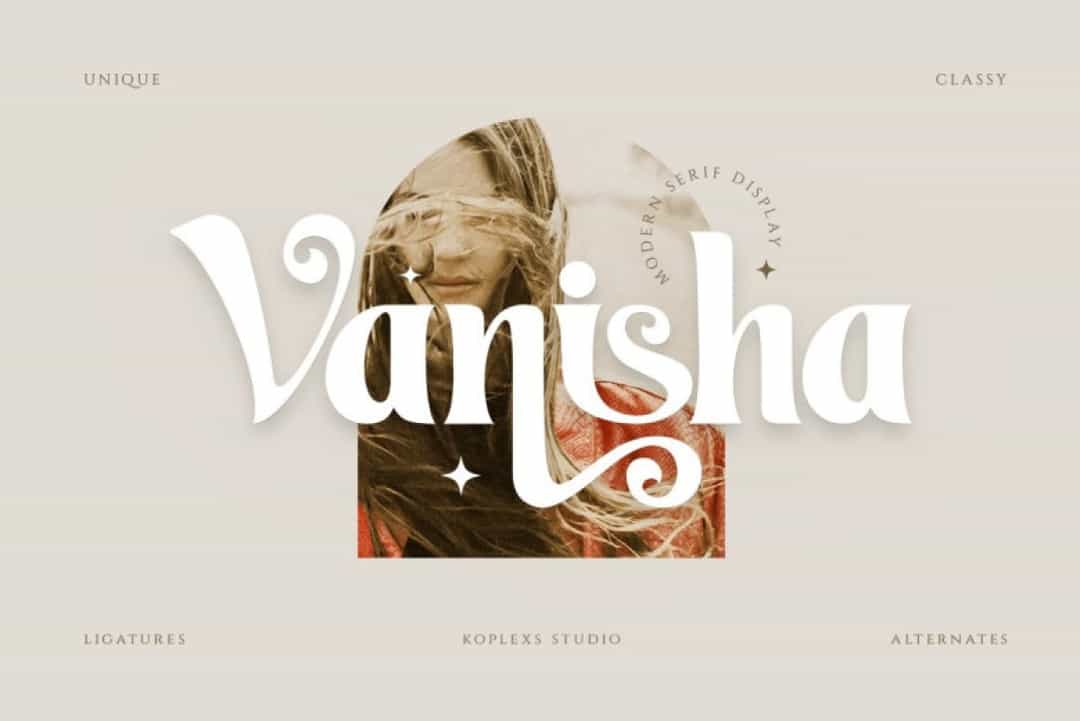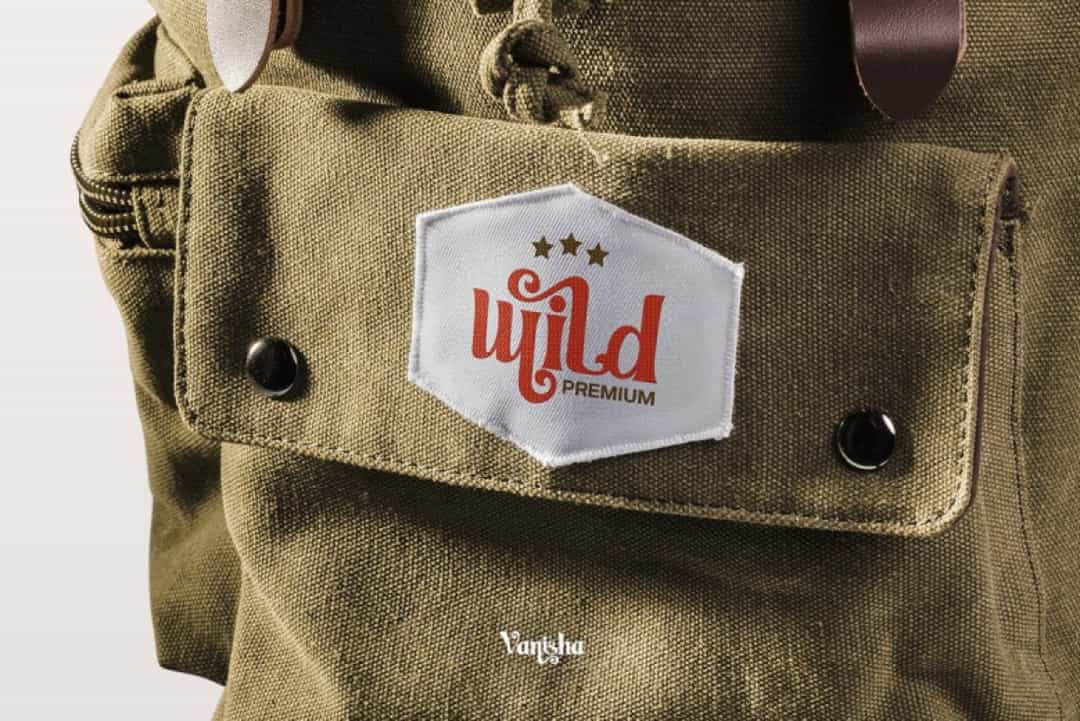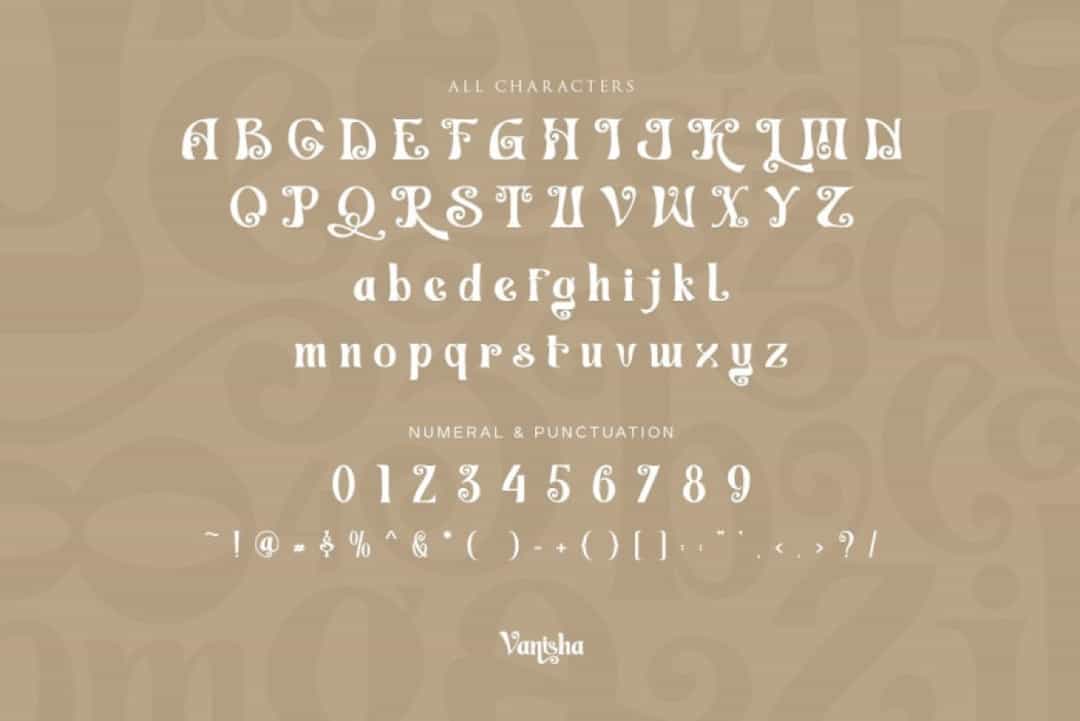
Vanisha is a Modern Serif Display Font featuring elegant Ligatures, abundant alternative glyphs, decorative features, multilingual support and remarkable flexibility for use both at small sizes as well as larger ones.